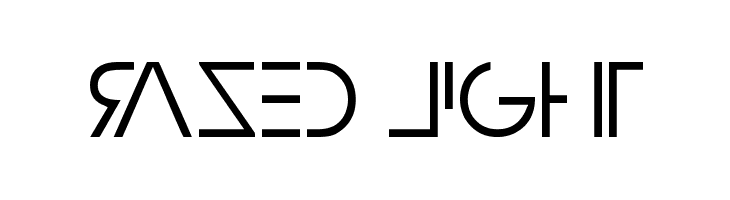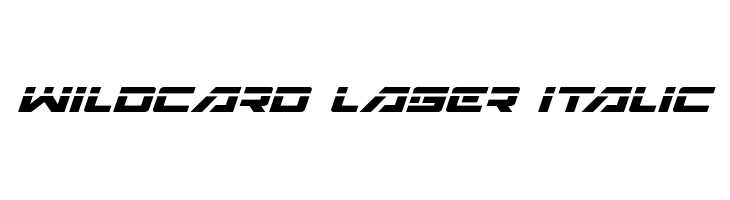
A futuristic, geometric font with sharp angles and clean lines.
A bold, playful font with a retro flair and exaggerated curves.
A refined, elegant serif font with a light weight and modern style.
A digital, segmented font with an italic slant, perfect for tech-inspired designs.
A bold, distressed stencil-style font with a rugged, industrial look.
A bold, playful display font with football-themed embellishments.
A bold, playful font with rounded, thick strokes for a friendly appearance.